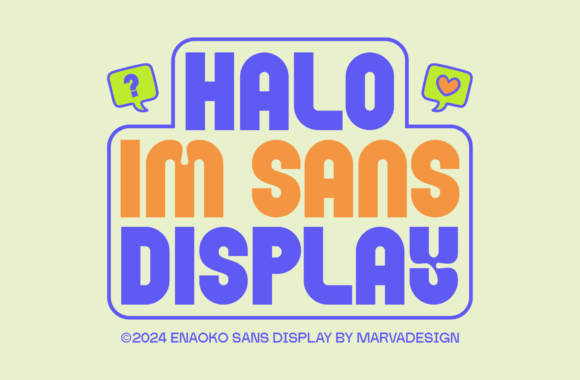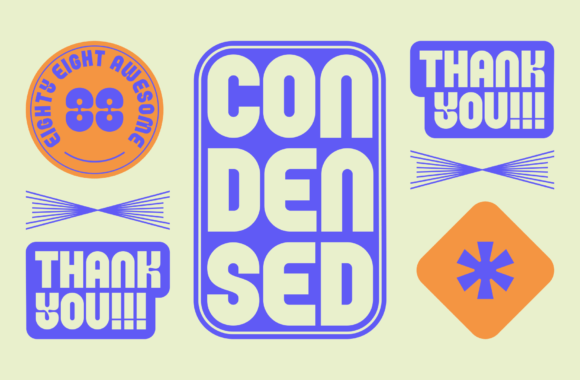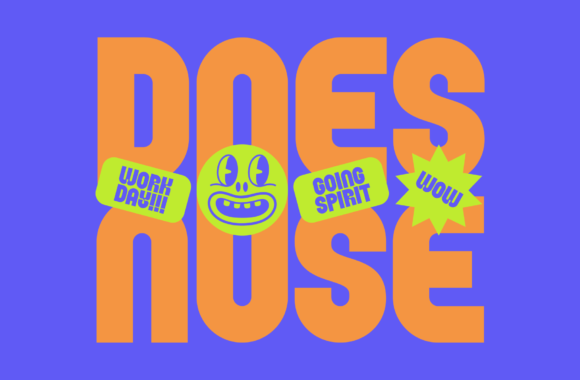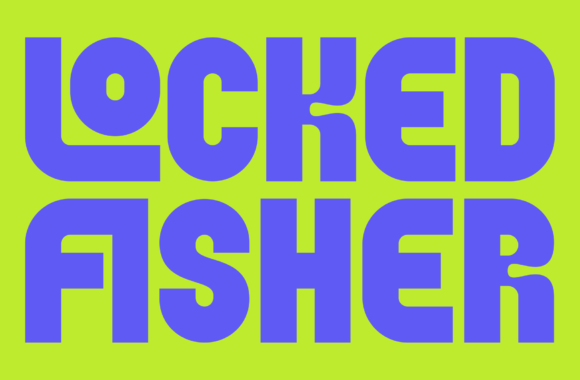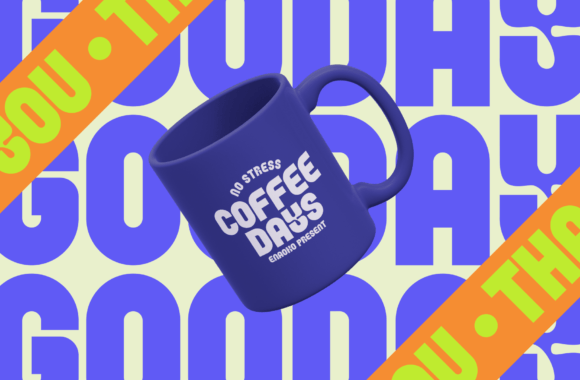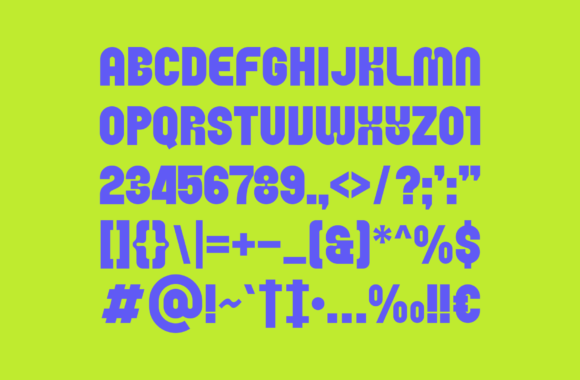
The Font that Stole the Show: Introducing Enaoko
I still remember the design project that led me to discover Enaoko. I was working on a branding campaign for a trendy fashion label, and I needed a font that would make their headings pop. After hours of scrolling through font libraries, I stumbled upon Enaoko, and it was love at first sight! The bold, semi-condensed style and sleek lines instantly caught my attention. In this article, I’ll share my experience with Enaoko, its features, and how to make the most of this stunning display font.
Enaoko: A Designer’s Dream
Enaoko is a display sans serif font that packs a punch. Its bold weight makes it perfect for headings and titles that demand attention. The semi-condensed style strikes a balance between compactness and readability, ensuring your text is both visually appealing and easy to read.
What sets Enaoko apart is its attention to detail. The font comes with various ligatures and alternate characters, giving designers the flexibility to experiment with different typographic expressions. Whether you’re working on a logo, brochure, or website, Enaoko offers the versatility you need to create something truly unique.
My Honest Review
- ✨ Bold and eye-catching: Enaoko’s bold weight makes it perfect for headings and titles that need to stand out.
- ✅ Semi-condensed style: The font’s compact yet readable design makes it ideal for a variety of design projects.
- 🎨 Variety of ligatures and alternates: Enaoko’s OpenType features allow for creative experimentation and customization.
⚠️ While Enaoko is an excellent font, it’s not without its limitations. Some users may find that the font’s bold weight can be overwhelming for body text or smaller sizes. Additionally, the font’s semi-condensed style may not be suitable for projects requiring a more expanded or luxurious feel.
🤔 Another thing to consider is that Enaoko’s alternate characters and ligatures may require some experimentation to get the desired look. However, this can also be seen as a benefit, as it allows designers to push the font’s creative boundaries.
The Story Behind Enaoko
Enaoko was designed with the goal of creating a bold and versatile display font. The designer’s inspiration came from a mix of modern sans serif fonts and classic typography. The result is a font that is both striking and elegant, making it perfect for a wide range of design projects.
Q: What is Enaoko’s primary use case?
A: Enaoko is designed for headings and titles, making it perfect for branding, advertising, and editorial design.
Q: Can I use Enaoko for body text?
A: While Enaoko can be used for body text, its bold weight may not be suitable for smaller sizes or longer blocks of text.
Q: Does Enaoko support OpenType features?
A: Yes, Enaoko supports OpenType features, including ligatures, stylistic alternates, and more.
Q: Is Enaoko suitable for digital use?
A: Yes, Enaoko is optimized for digital use and can be used for a variety of digital projects, including websites, social media graphics, and more.